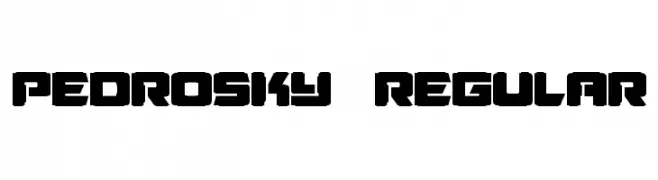
A bold, brush-style font with dynamic and expressive characters.
A bold, playful font with exaggerated curves and a whimsical style.
A futuristic, geometric font with bold, angular letterforms.
A bold, geometric font with a playful, modern aesthetic and strong visual impact.
A futuristic, geometric font with bold, stylized characters and star accents.
A futuristic, geometric font with a bold, 3D appearance.
A futuristic, italic font with geometric precision and a modern aesthetic.
A futuristic, 3D, expanded italic font with a tech-inspired design.
A futuristic, expanded, and italicized font with a geometric and modern design.
A futuristic, geometric font with bold, rounded edges and consistent stroke width.
A futuristic, 3D italic font with geometric, outlined characters.
A futuristic, 3D geometric font with an expanded width and tech-inspired design.
A futuristic, tech-inspired font with bold, geometric outlines.
A bold, futuristic font with a geometric and digital aesthetic.
A bold, angular font with a futuristic and mechanical design.
A futuristic, stencil-like italic font with geometric and angular design.
A futuristic, italic font with bold, outlined characters and a tech-inspired design.
A futuristic, stencil-like font with a mechanical and digital aesthetic.
A futuristic, italicized font with expanded, geometric characters and medium contrast.
A futuristic, slanted font with bold, angular characters and a dynamic style.
A bold, retro-style font with a 3D shadow effect.
A clean, modern sans-serif font with excellent readability and a balanced design.
A bold, modern sans-serif font with excellent readability and a clean, professional appearance.
A bold, geometric font with angular lines and a blocky appearance.
A bold, 3D shadow font with a geometric and angular design.
Whimsical, hand-drawn font with abstract mouse faces in circles.
An ornate, Art Nouveau-inspired decorative font with intricate floral designs.